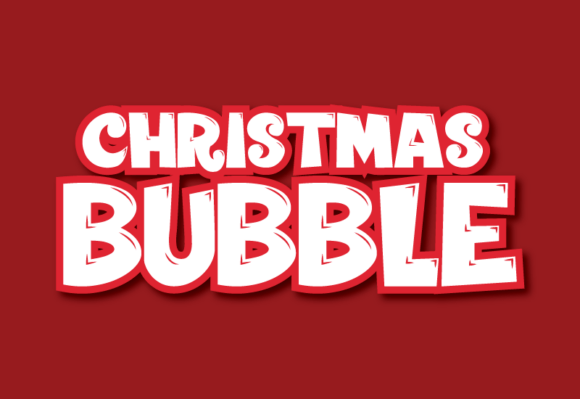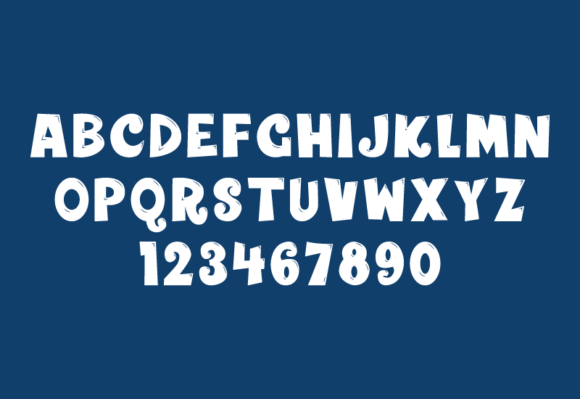
Bring a Playful, Festive Charm to Your Designs with the Christmas Bubble Font!
The holiday season is upon us, and what better way to get into the festive spirit than with a fun and playful font that’s perfect for all your Christmas designs? Look no further than the “Christmas Bubble” Font! This cheerful bubble-style typeface is designed to bring a joyful and modern twist to your festive invitations, holiday greetings, posters, or kids’ Christmas projects.
What is the Christmas Bubble Font?
The Christmas Bubble Font is a unique and eye-catching typeface that’s specifically designed for the Christmas holiday season. Its rounded, bubbly letters are perfect for adding a touch of whimsy and fun to your designs. Whether you’re creating festive invitations, holiday cards, or social media graphics, this font is sure to bring a smile to everyone’s face.
The Christmas Bubble Font is a versatile typeface that’s perfect for designers and crafters alike. Its playful and festive charm makes it ideal for a wide range of projects, from holiday cards and invitations to posters and kids’ crafts. Whether you’re a professional designer or a DIY crafter, this font is sure to inspire your creativity and add a touch of holiday magic to your designs.
Key Features of the Christmas Bubble Font
- Playful and Festive: The Christmas Bubble Font is designed to bring a joyful and modern twist to your festive designs.
- Rounded and Bubbly Letters: The font’s rounded, bubbly letters are perfect for adding a touch of whimsy and fun to your designs.
- Versatile: The Christmas Bubble Font is perfect for a wide range of projects, from holiday cards and invitations to posters and kids’ crafts.
Ideas for Using the Christmas Bubble Font
The Christmas Bubble Font is a versatile typeface that can be used in a wide range of projects. Here are a few ideas to get you started:
- Holiday Cards and Invitations: Use the Christmas Bubble Font to create festive holiday cards and invitations that are sure to impress.
- Social Media Graphics: Add a touch of holiday magic to your social media graphics with the Christmas Bubble Font.
- Posters and Flyers: Use the font to create eye-catching posters and flyers that are perfect for promoting holiday events.
- Kids’ Crafts: The Christmas Bubble Font is perfect for kids’ crafts, such as making holiday cards, gift tags, and decorations.
Tips for Getting the Most Out of the Christmas Bubble Font
Here are a few tips for getting the most out of the Christmas Bubble Font:
- Experiment with Different Colors: The Christmas Bubble Font looks great in a wide range of colors, so don’t be afraid to experiment and find the perfect color scheme for your design.
- Use it with Other Fonts: The Christmas Bubble Font pairs well with other fonts, so try using it with a bold font for headings and a more elegant font for body text.
- Add Some Holiday Flair: Use the Christmas Bubble Font to add some holiday flair to your designs, such as holly leaves, snowflakes, or Christmas trees.
The Christmas Bubble Font is a fun and playful typeface that’s perfect for adding a touch of festive charm to your designs. Its rounded, bubbly letters are sure to bring a smile to everyone’s face, and its versatility makes it perfect for a wide range of projects. Whether you’re a designer or a crafter, this font is sure to inspire your creativity and add a touch of holiday magic to your designs. So why wait? Download the Christmas Bubble Font today and start creating your own festive designs!